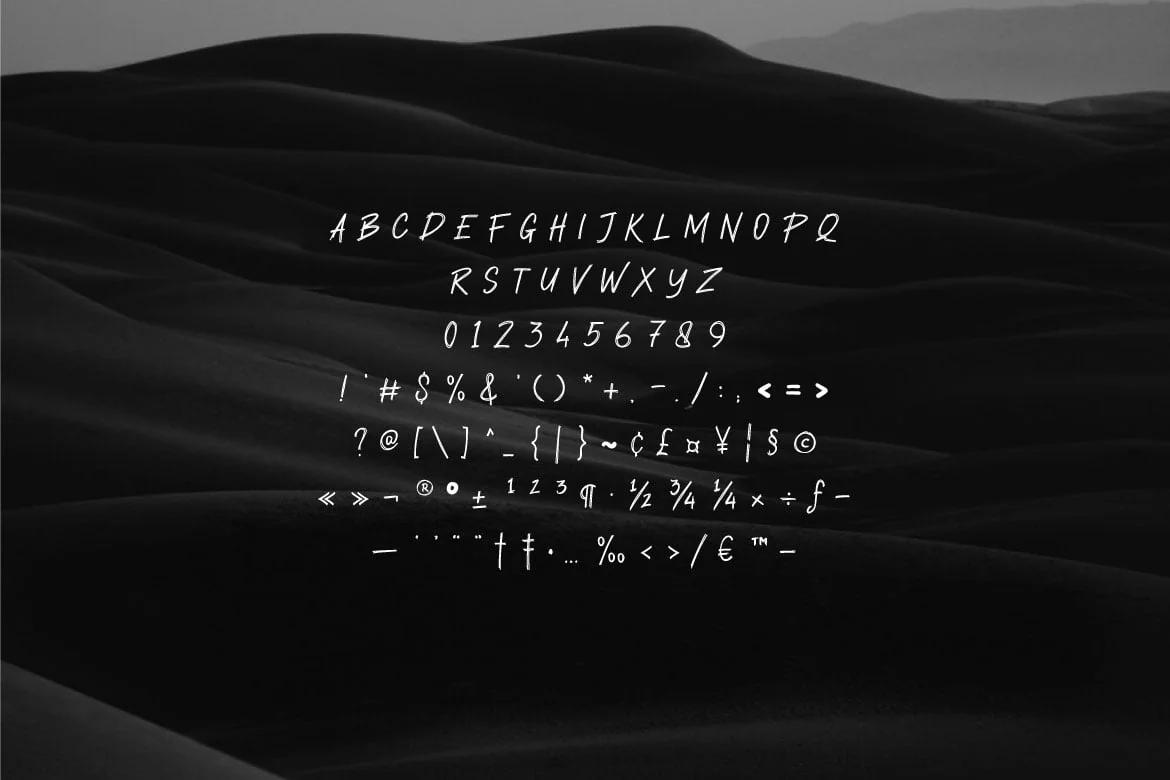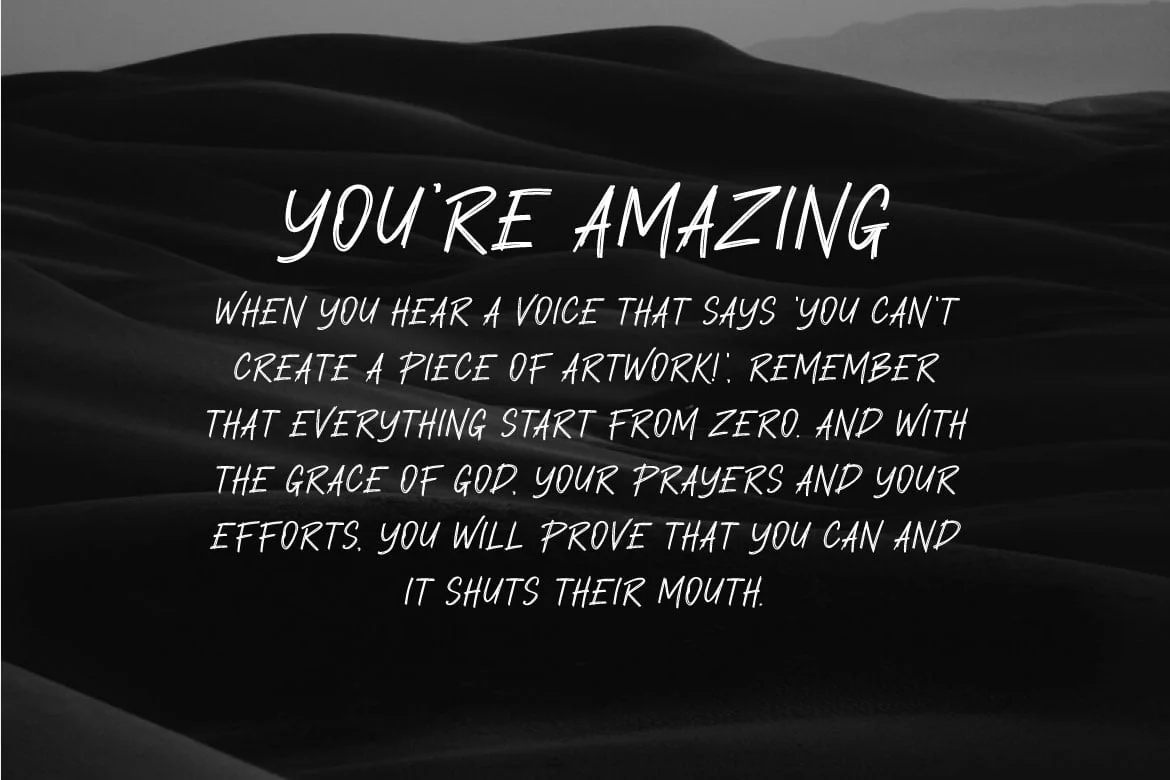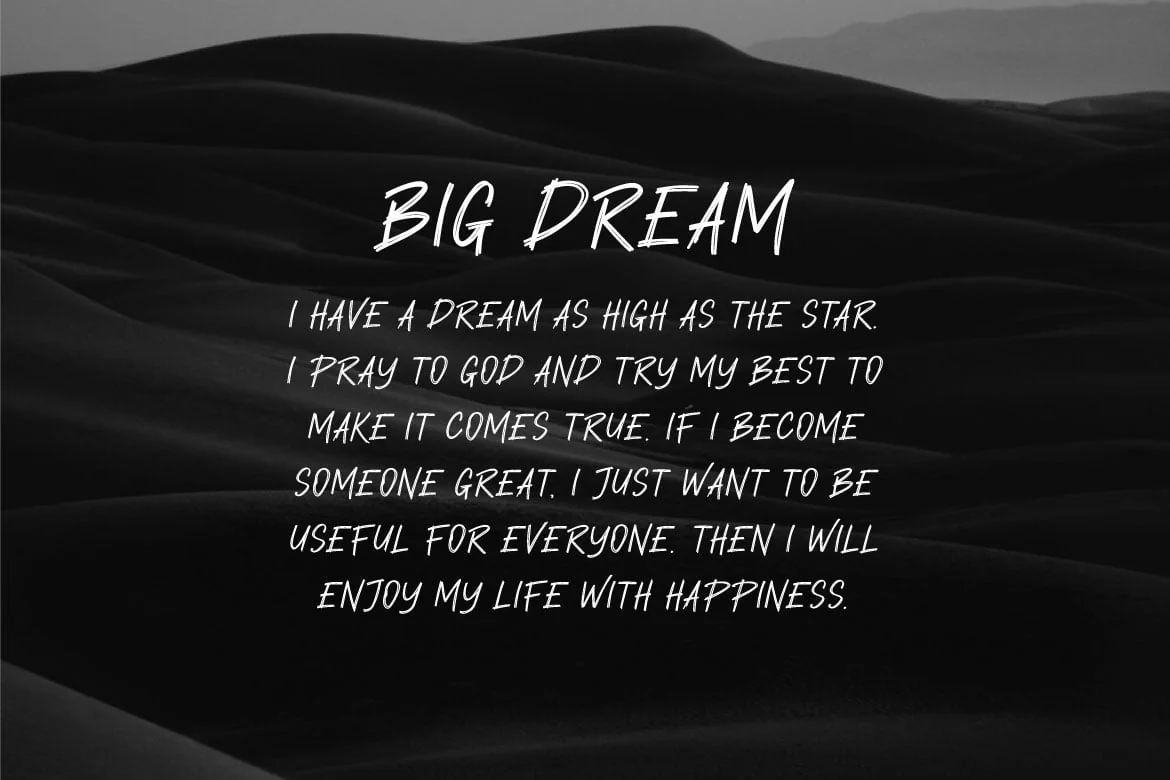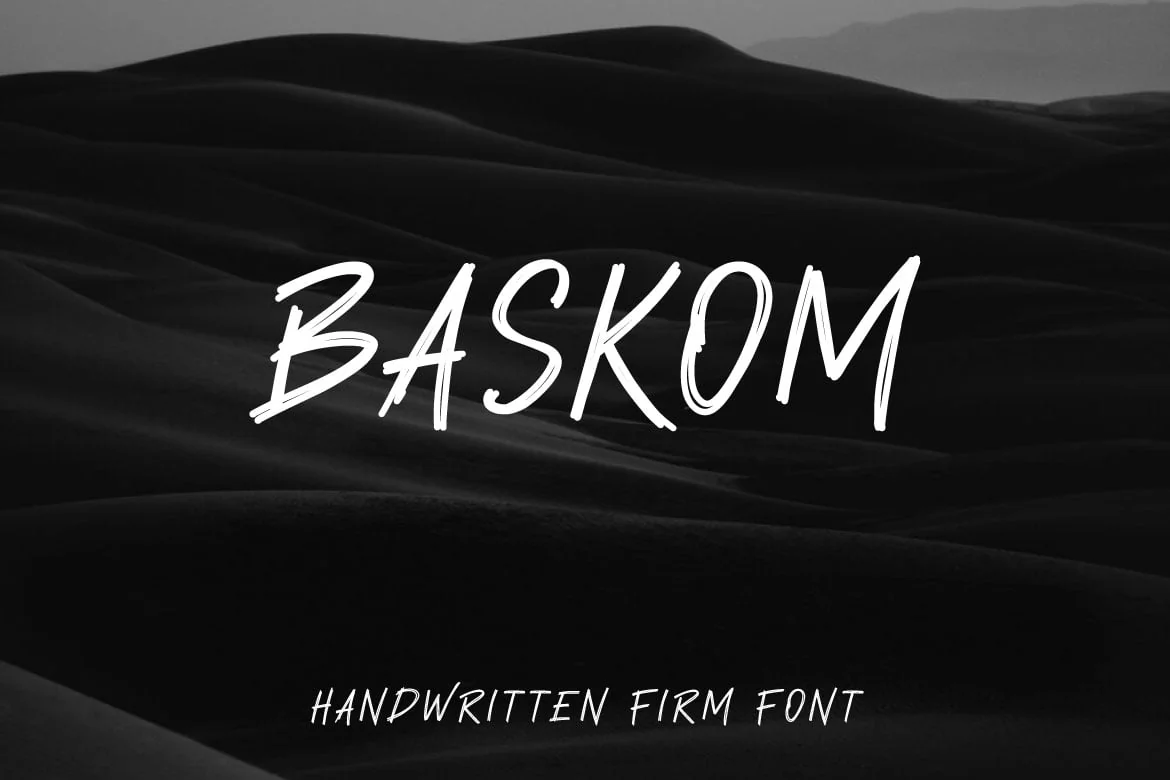
Baskom – Handwritten Firm Font
Hello! Baskom is a handwritten font.
Baskom can be used in any works such as comic book, poster, school, flyer, book title, advertisement, social media content, logo and many more.